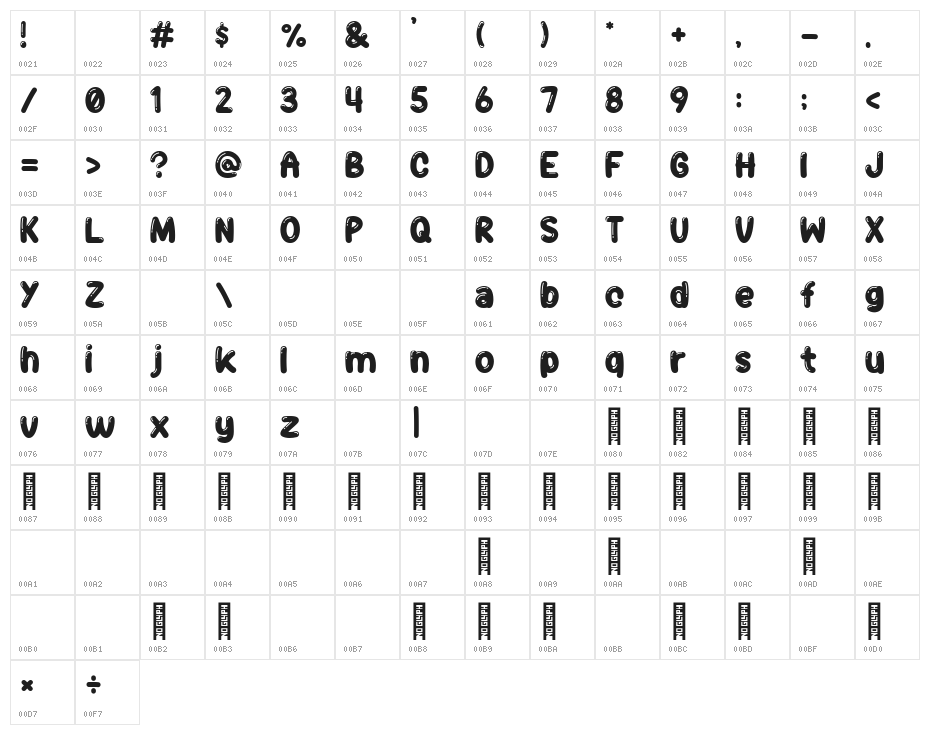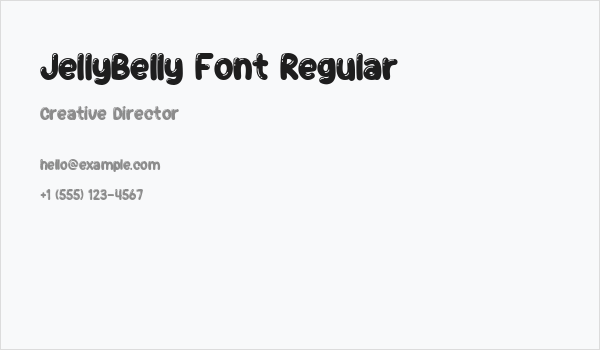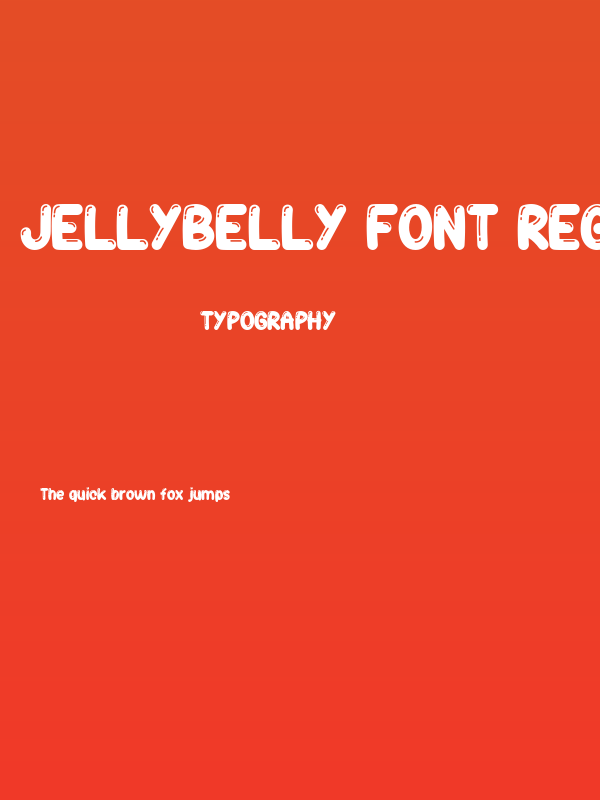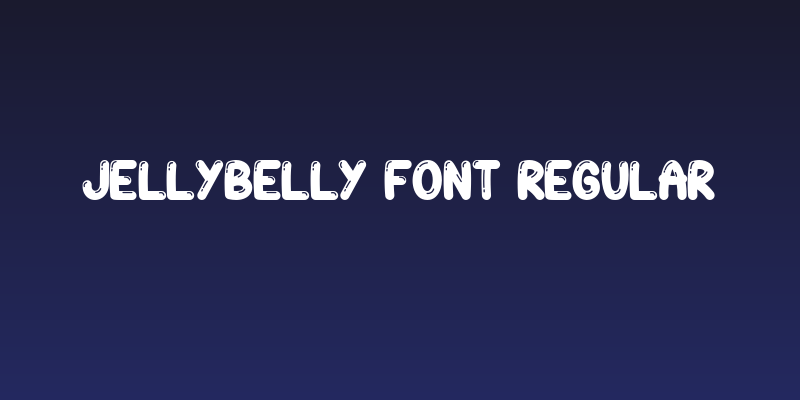
JellyBelly Font Regular Font
JellyBelly Font Regular Description
This playful and bold font features rounded, bubble-like characters that exude a sense of fun and whimsy. The letters are thick and have a glossy appearance, reminiscent of jelly or candy, making them stand out with a unique, eye-catching style. The font maintains a consistent weight throughout, with smooth curves and a slightly condensed form. Its playful nature makes it ideal for projects that require a touch of lightheartedness and creativity. The characters are evenly spaced, ensuring readability while maintaining a cohesive look. This font is perfect for designs that aim to capture attention and convey a sense of joy and energy.
Jelly Belly Font
| Overall Style | Playful, Fun, Whimsical |
| Proposed Projects | Ideal for children's book covers, playful branding, party invitations, and creative posters. |